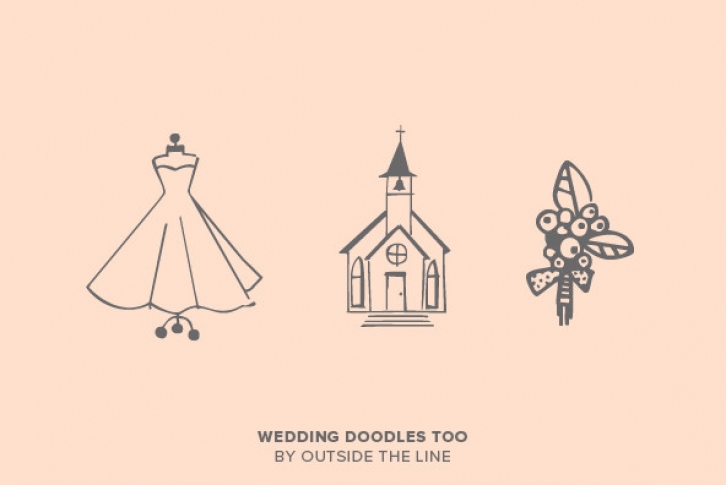
Say "I Do", to Wedding Doodles. A font of 31 wedding icons - bow tie, shoe, bouquets, cakes, invitation, cupcakes, bon bons, wedding dress, tux, ring bearer, flower girl, suitcases, congratulations banner, balloons, garter, gift, cuff links, wedding bands, and a diamond ring, Use for a wedding shower flyer or make your own personal gift card.